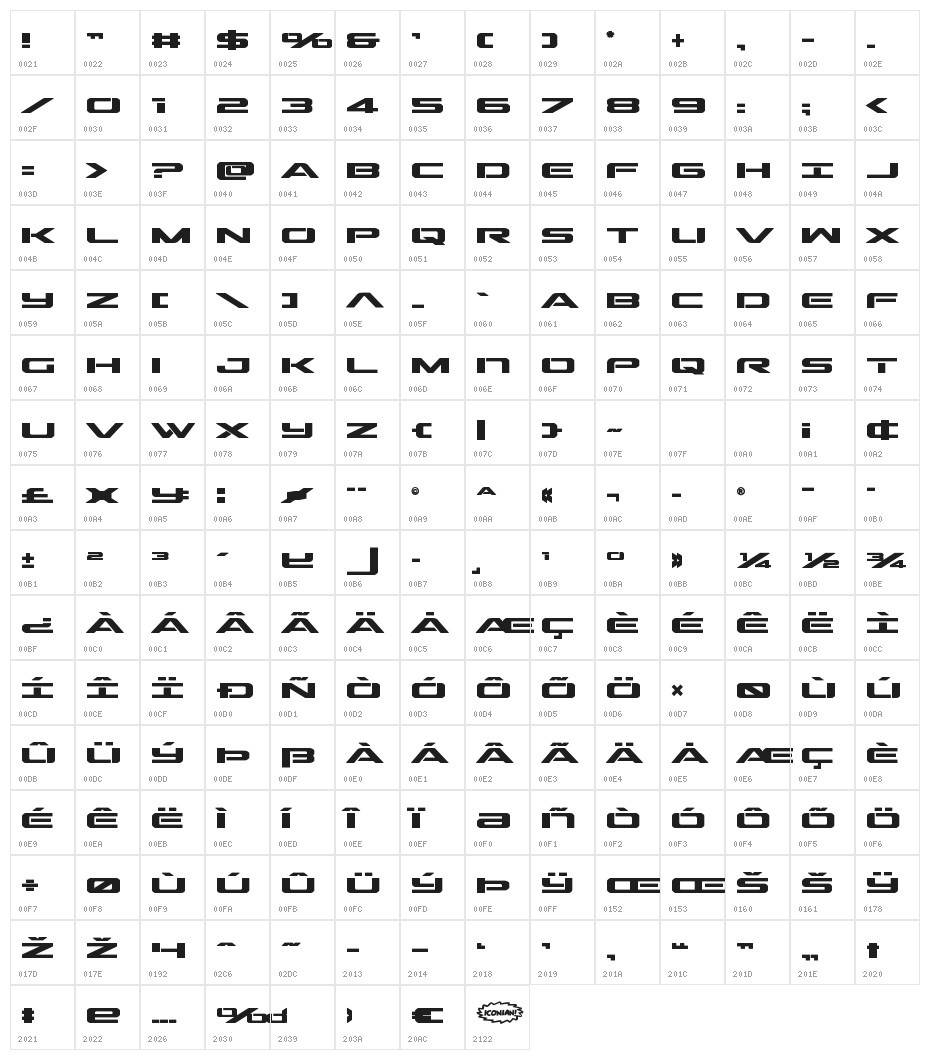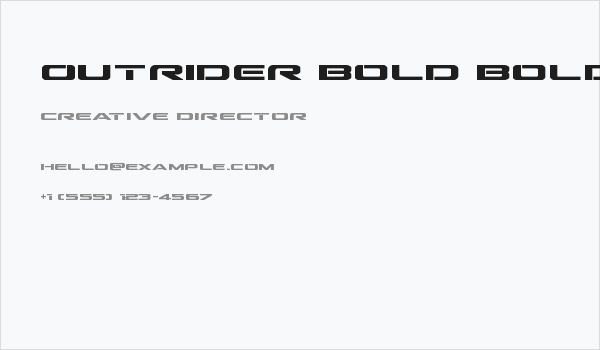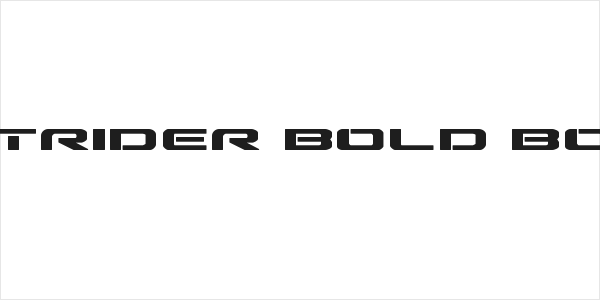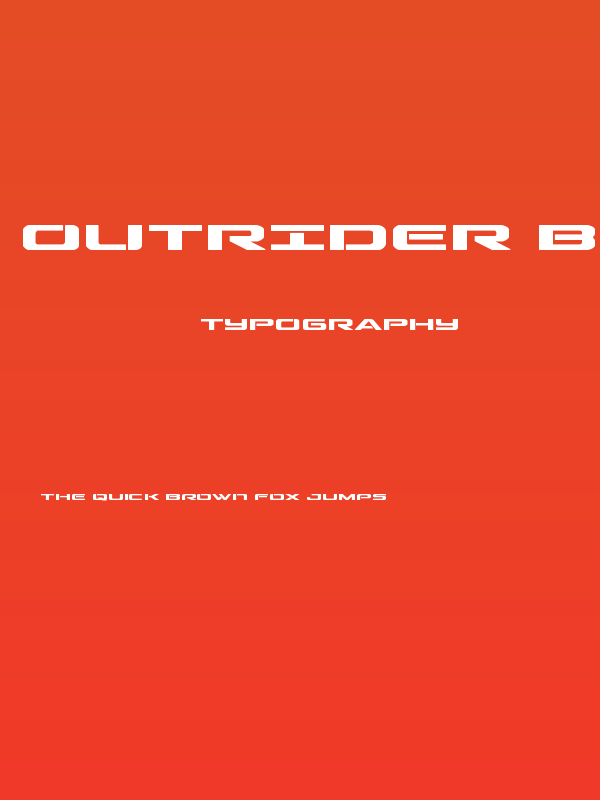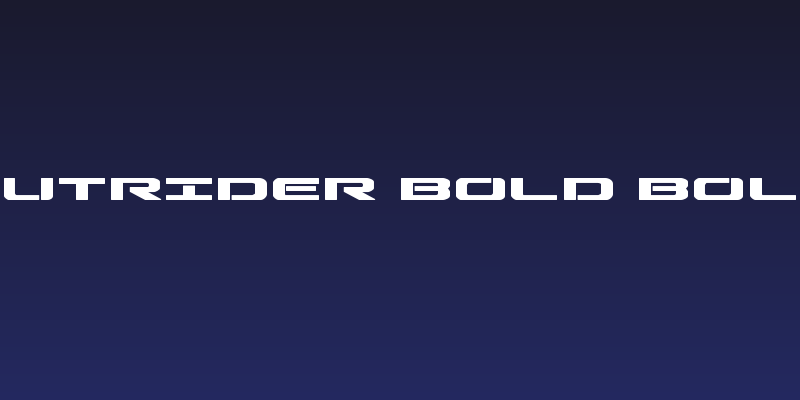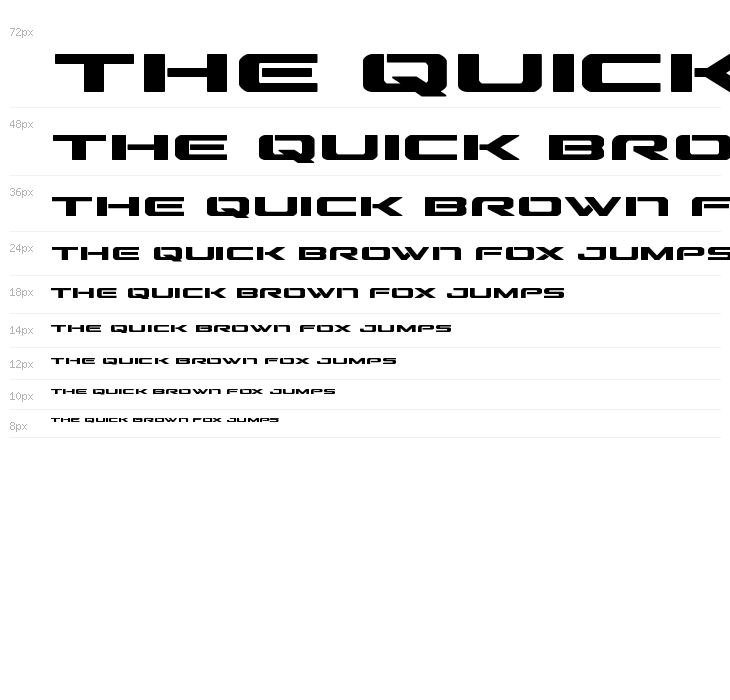
Outrider Bold Bold Font
Outrider Bold Bold Description
This font features a bold, futuristic design with sharp, angular edges and a geometric structure. The uppercase letters are particularly striking, with a strong presence that commands attention. The lowercase letters maintain the same boldness, ensuring consistency across text. Numbers and special characters are equally robust, making them suitable for a variety of applications. The overall aesthetic is modern and dynamic, ideal for projects that require a strong visual impact.
| Proposed Projects | Ideal for sci-fi themed designs, technology branding, video game titles, and modern posters. |